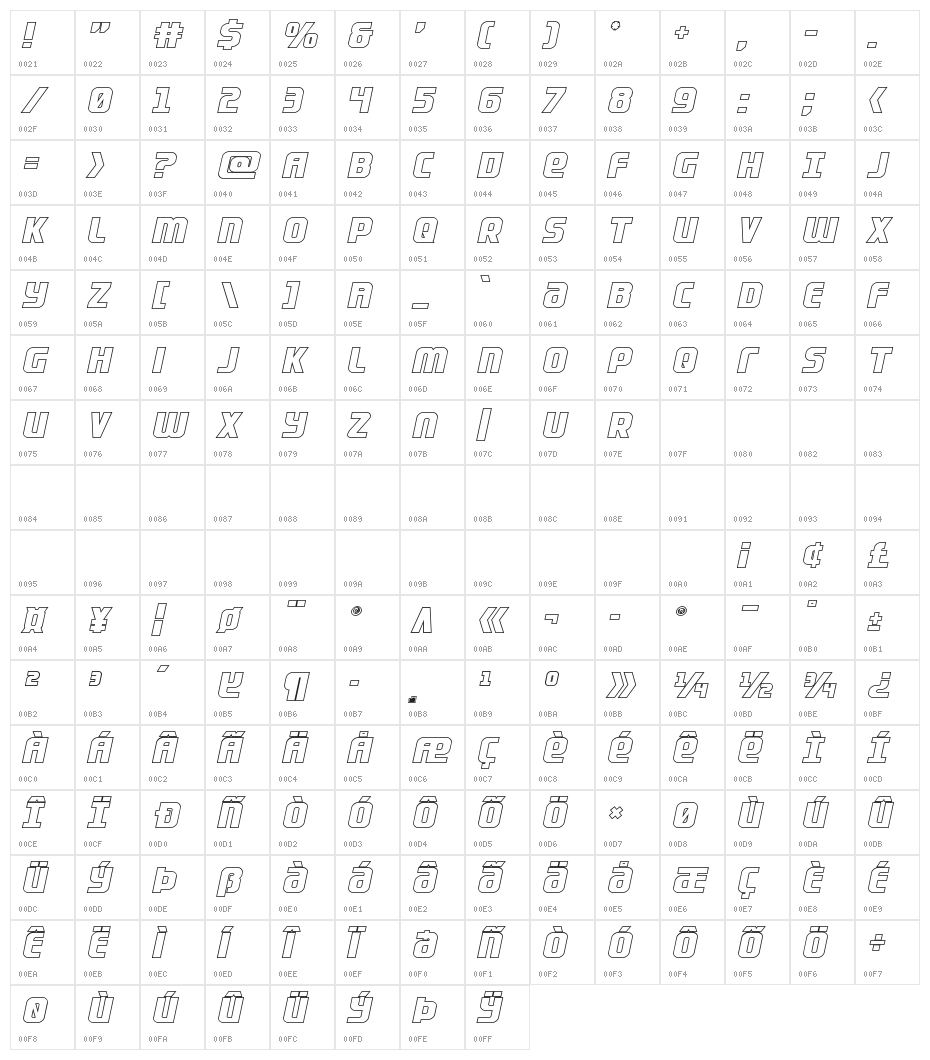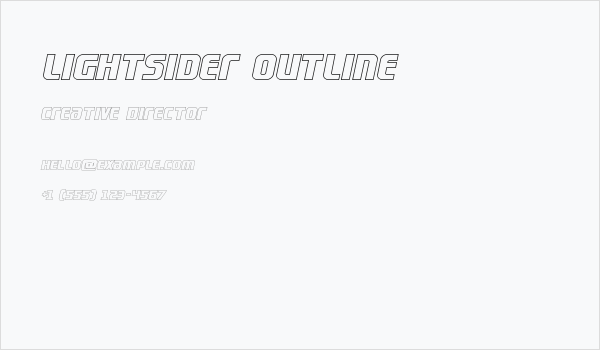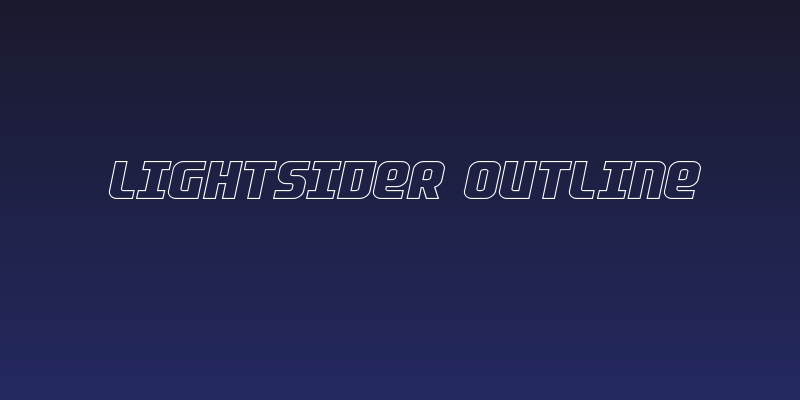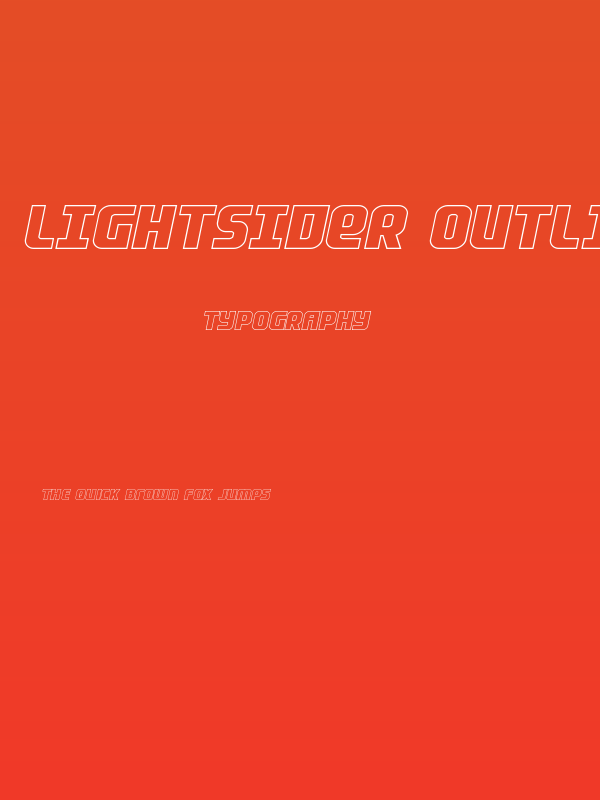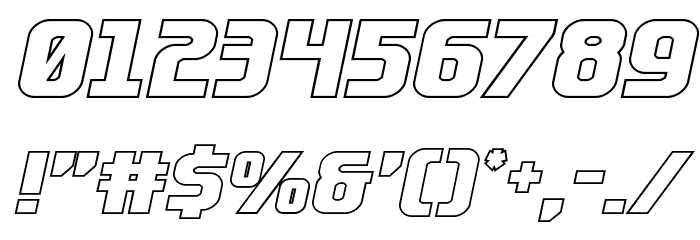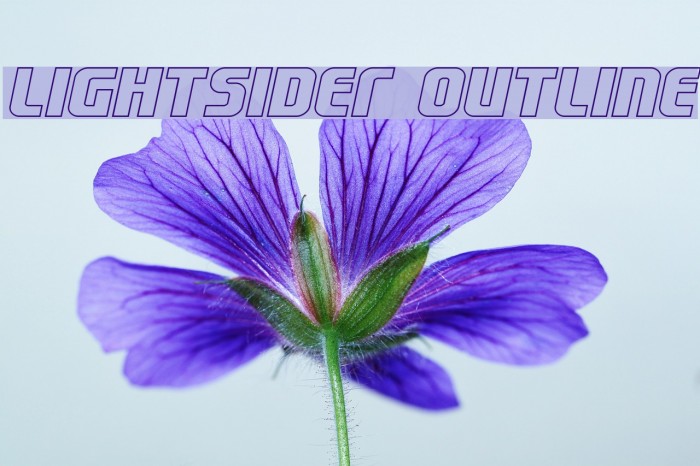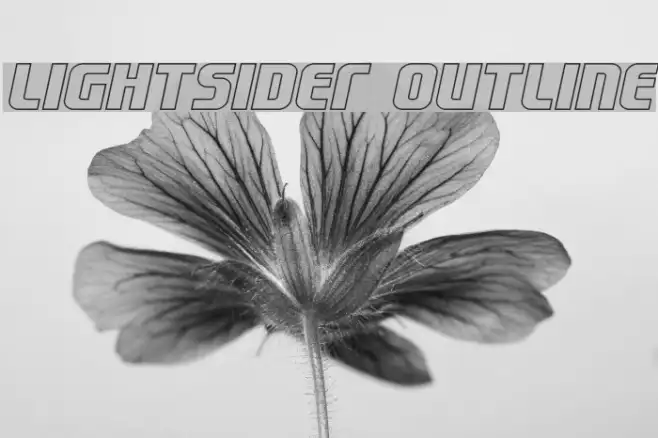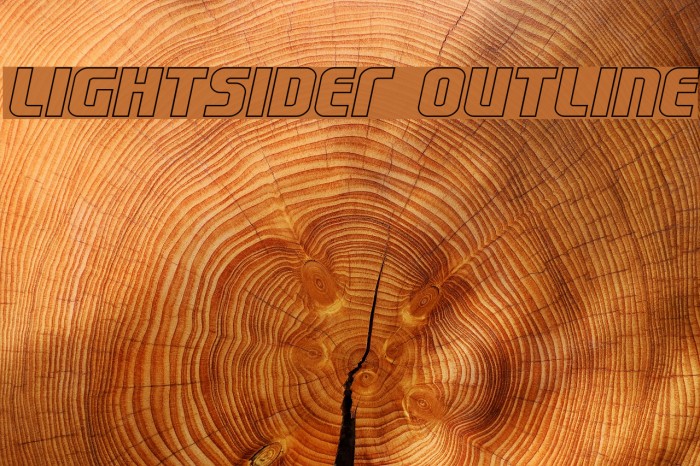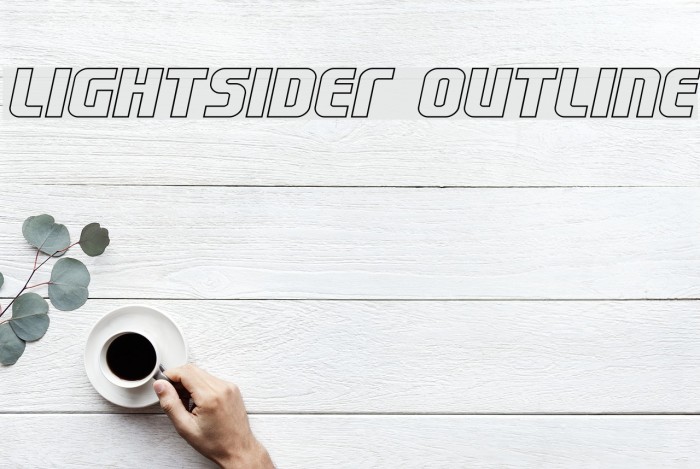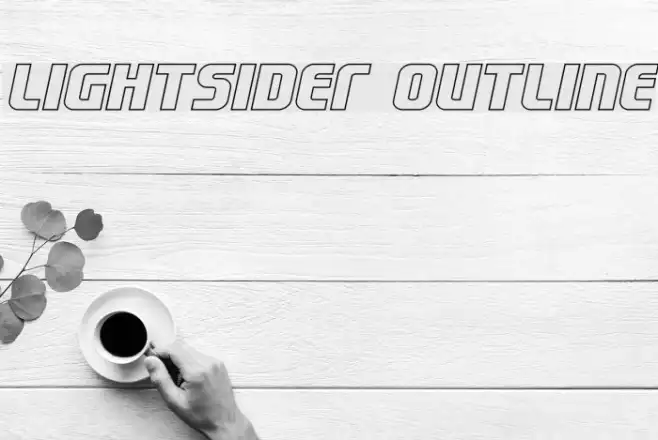
Lightsider Outline Font
Lightsider Outline Description
This font features a bold, outlined style that gives it a futuristic and dynamic appearance. The characters are designed with a geometric precision, creating a sense of movement and energy. The uppercase and lowercase letters maintain a consistent width, contributing to a uniform look. The numbers and special characters are crafted with the same attention to detail, ensuring a cohesive design throughout. The font's outline style makes it stand out, ideal for projects that require a modern and eye-catching typeface.
| Proposed Projects | Ideal for sci-fi themed designs, technology branding, posters, and video game graphics. |